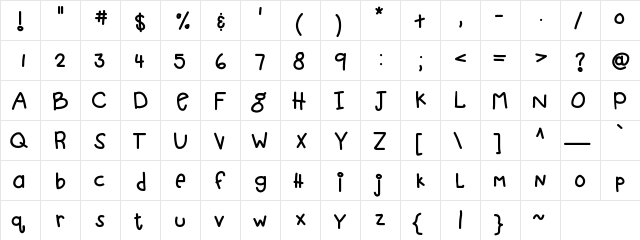
KBwhenpigsfly Medium
Design Context for KBwhenpigsfly Typeface
KBwhenpigsfly is a composed and adaptable typeface that performs quietly and consistently across a wide range of design contexts.